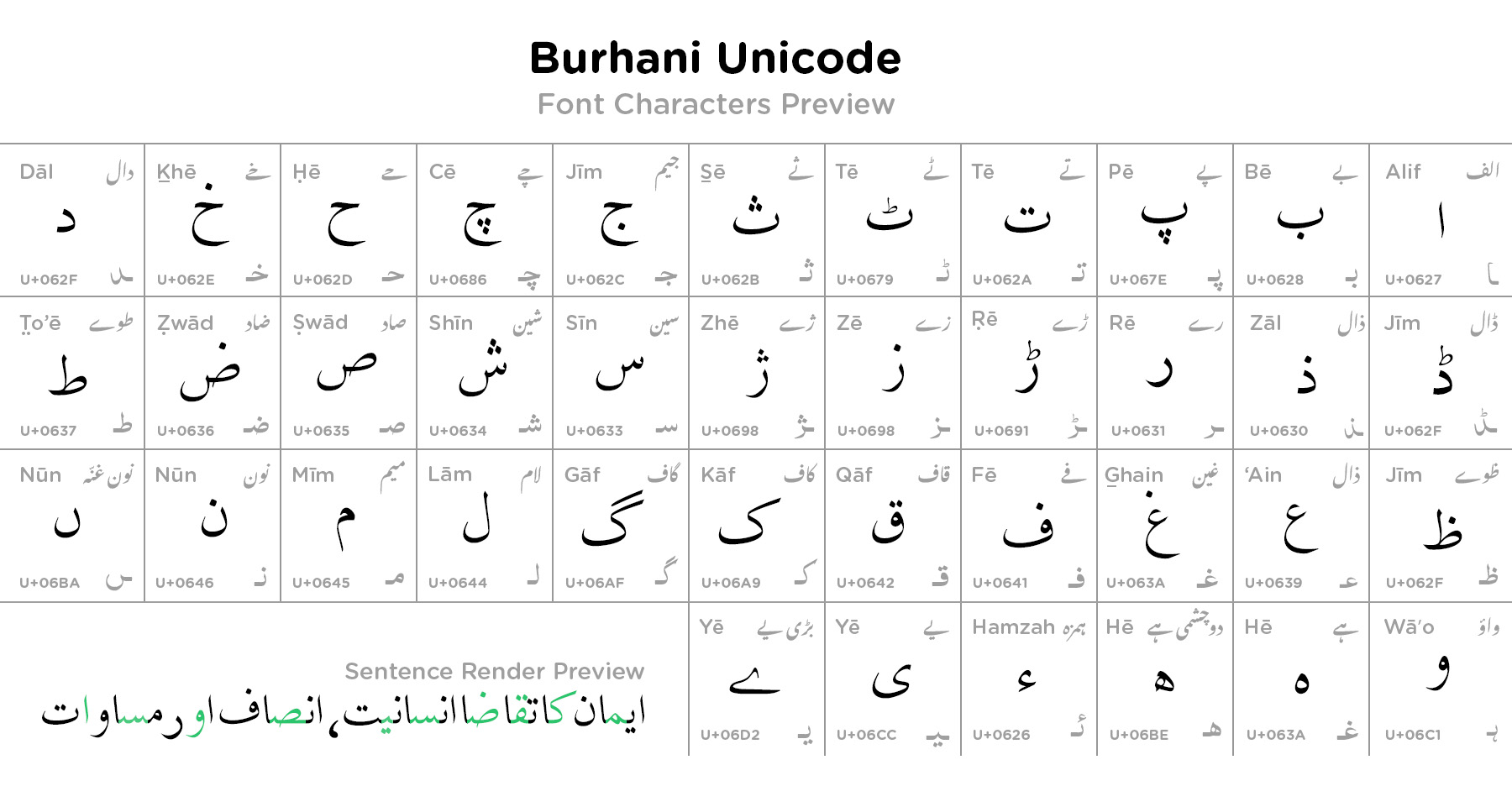
Burhani Unicode was designed by Syed Manzar Hasan Zaidi and developed by Axis Softmedia Pvt. Ltd, since 2008, is a regular Urdu/Arabic font inspired by the traditional Naskh script. Released in 2017, it boasts 444 characters and symbols, catering to various languages and compatible with Unicode blocks like Basic Latin, Arabic, and more. Characterized by its plain design, slightly rounded curves, and constant thickness, the font prioritizes legibility and simplicity. Its balanced proportions, limited curvature, clean lines, and consistent weight contribute to its high legibility, making it ideal for long text blocks and even smaller sizes. Its design prioritizes clear letter shapes and well-defined spacing, making it suitable for extended text reading